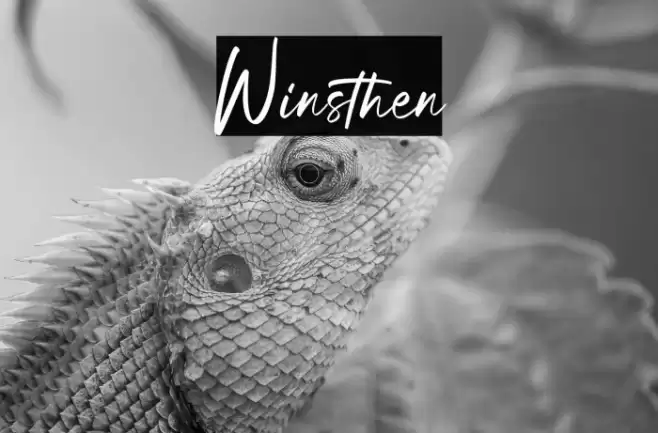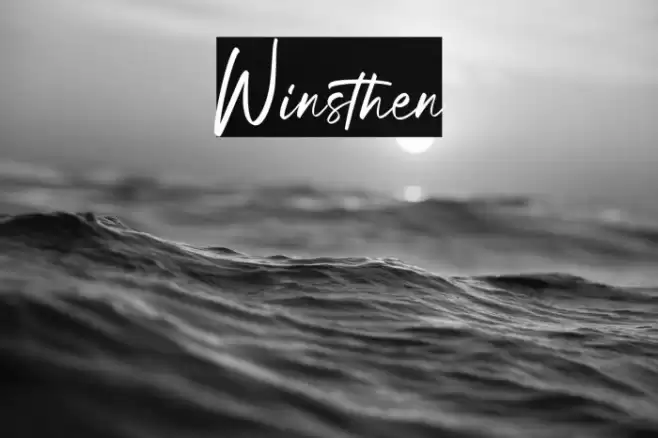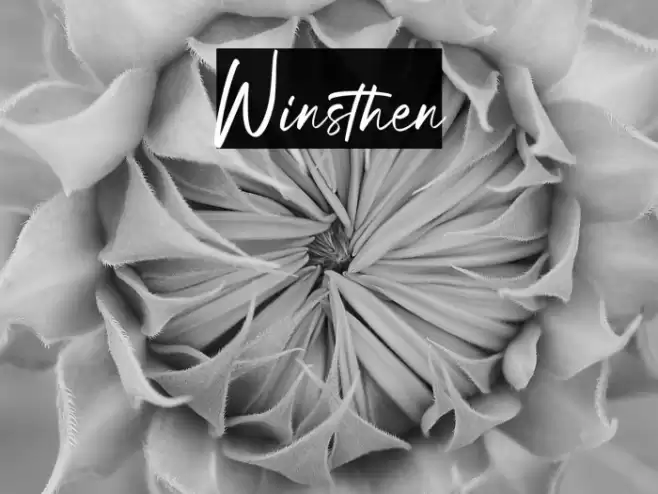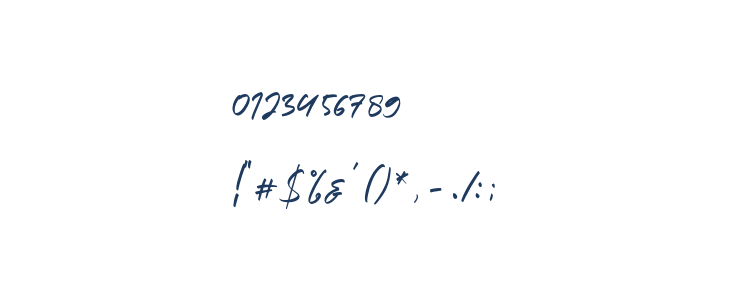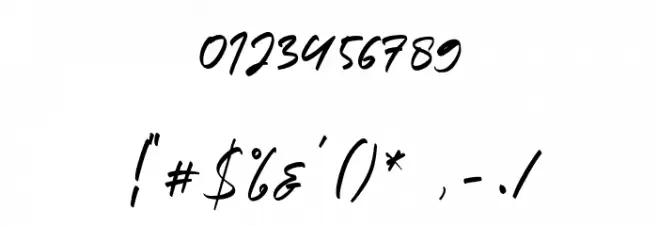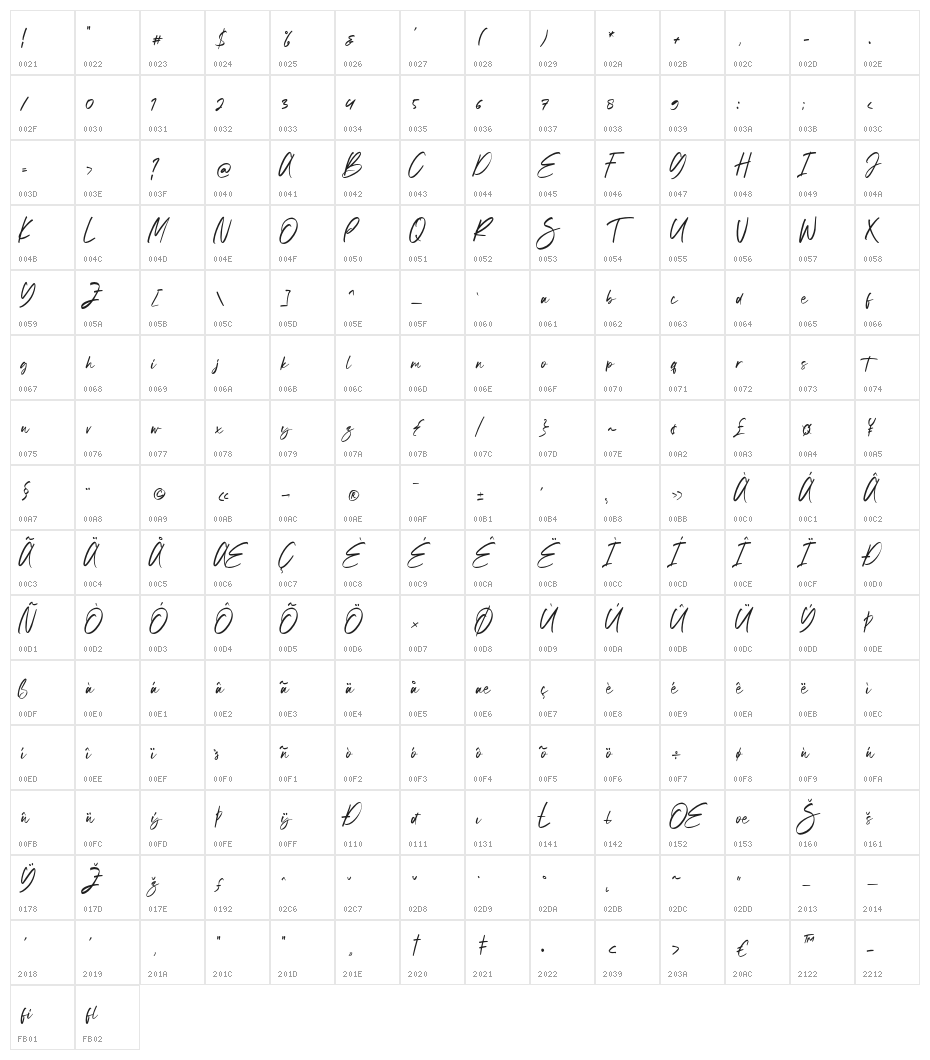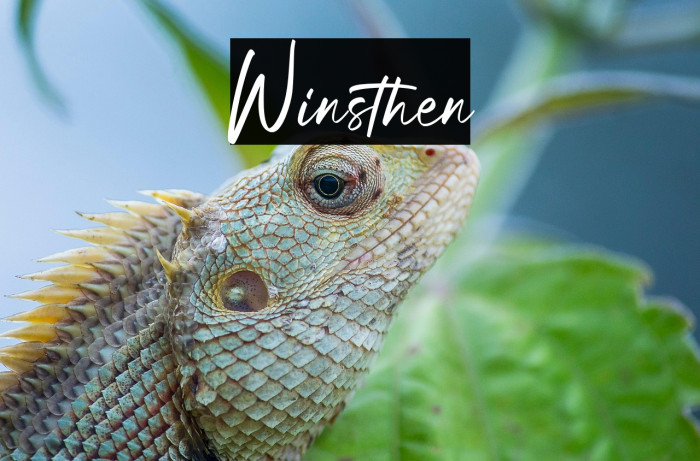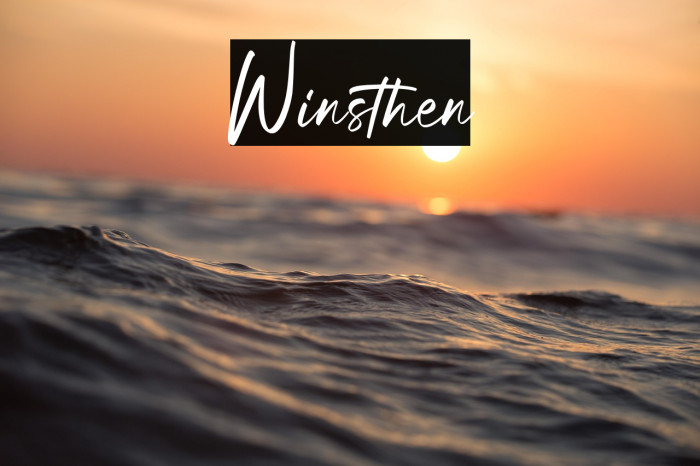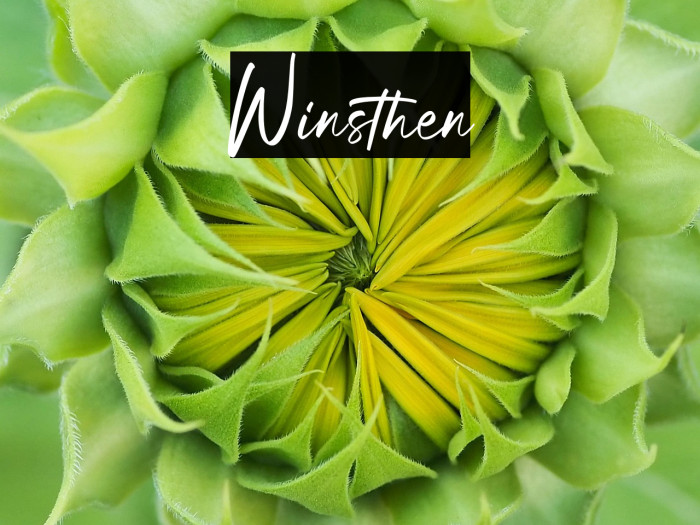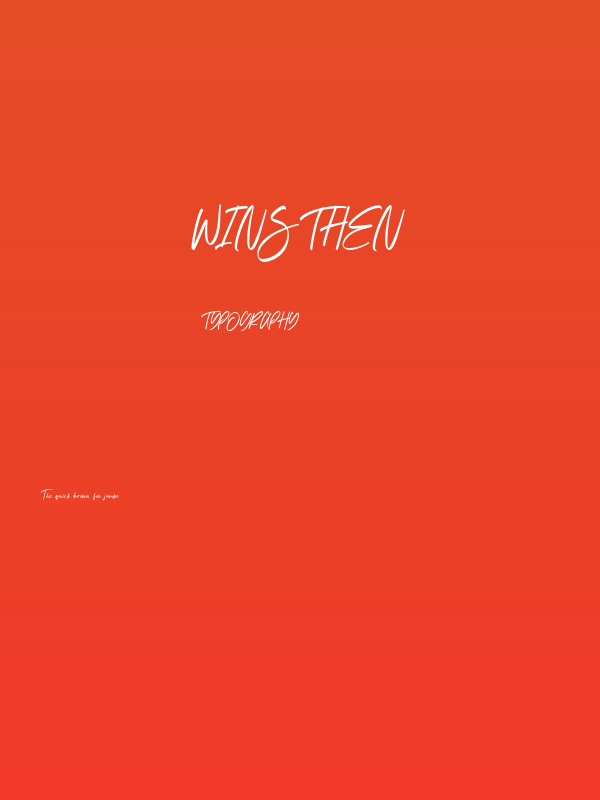
Winsthen Font
Winsthen Description
This font features a dynamic and fluid script style, characterized by its elegant and flowing letterforms. The uppercase letters are bold and expressive, with a slight slant that adds a sense of movement and energy. The lowercase letters maintain a consistent style, with smooth curves and a natural handwritten appearance. The numerals and special characters are crafted with the same attention to detail, ensuring a cohesive look across all elements. This font's overall aesthetic is both modern and artistic, making it suitable for a variety of creative applications.
A dynamic and fluid script font with elegant, flowing letterforms from Uncategorized fonts.
- Proposed Projects: Ideal for branding, invitations, greeting cards, and social media graphics.
- Use Case: Logos, Headlines, Invitations